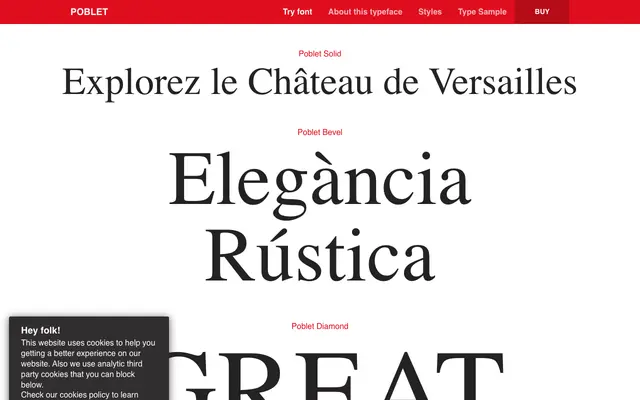
Poblet
Typerepublic · Andreu Balius and Ricard Garcia · 2018
A three-style condensed display serif drawn from Elzevier Condensed traditions, named after the Cistercian Poblet Abbey in Tarragona, Spain.
Designed by Andreu Balius and Ricard Garcia in 2018, the family offers three distinct variants: Solid, Bevel and Diamond, each lending a different decorative register to the same condensed serif skeleton. The forms carry echoes of both Gothic ecclesiastical architecture and Art Deco titling, making the family suited to editorial headlines, packaging and cultural projects. Extensive Latin language support spans hundreds of languages with localised forms for Catalan and Dutch.
Poblet is a display type family inspired by the classic Elzevier Condensed, a historical condensed serif form. Its three decorative styles (Solid, Bevel, Diamond) place it firmly in the display category with a strong historical serif lineage.